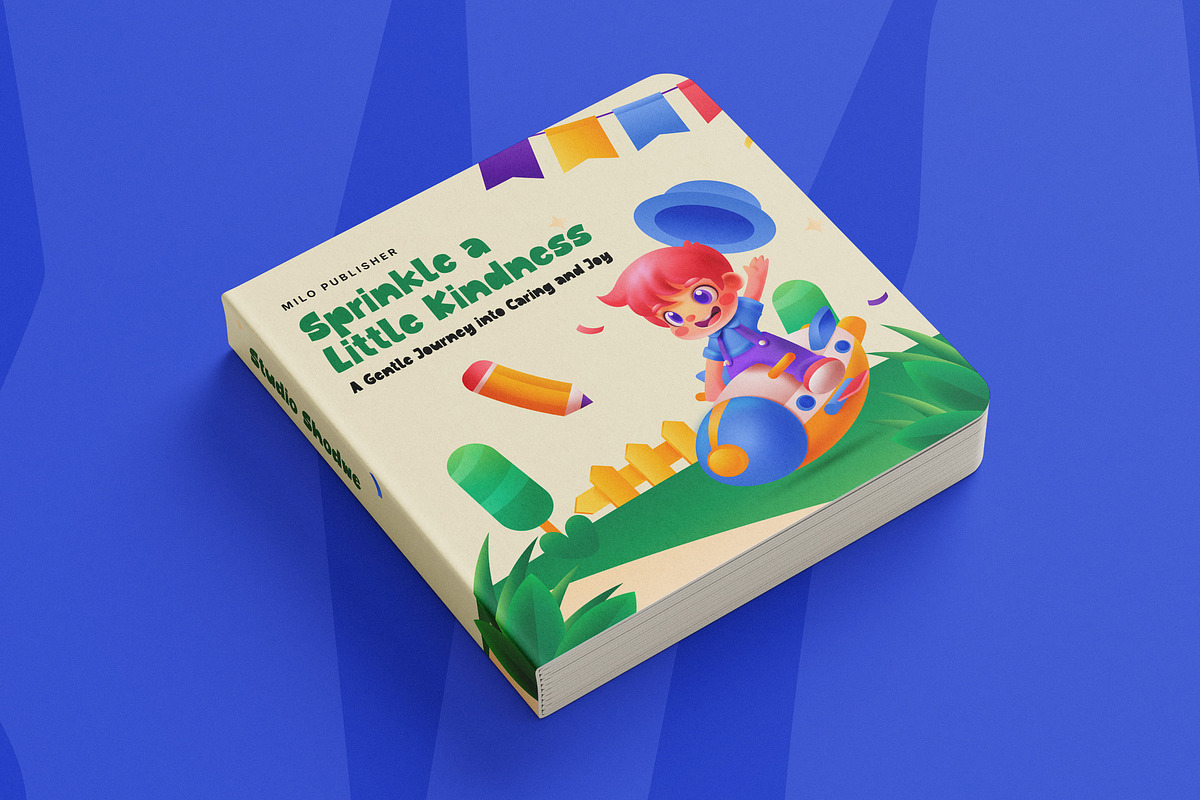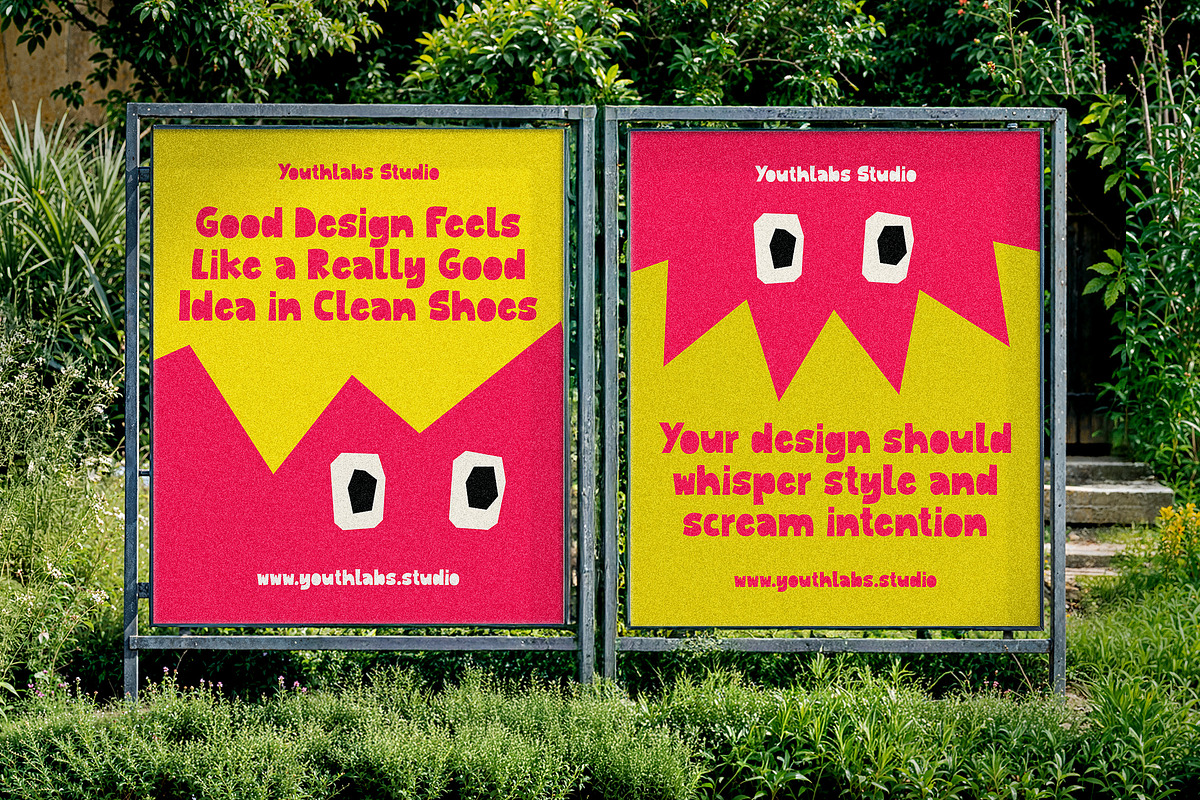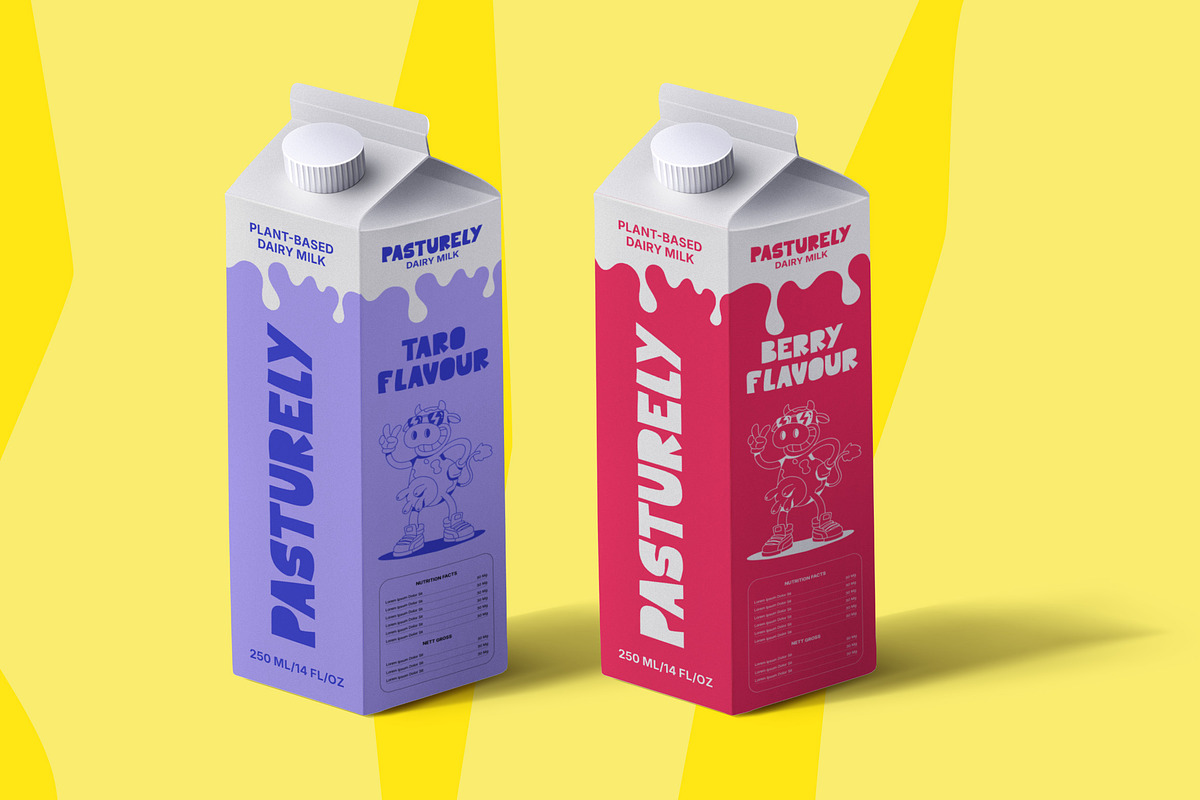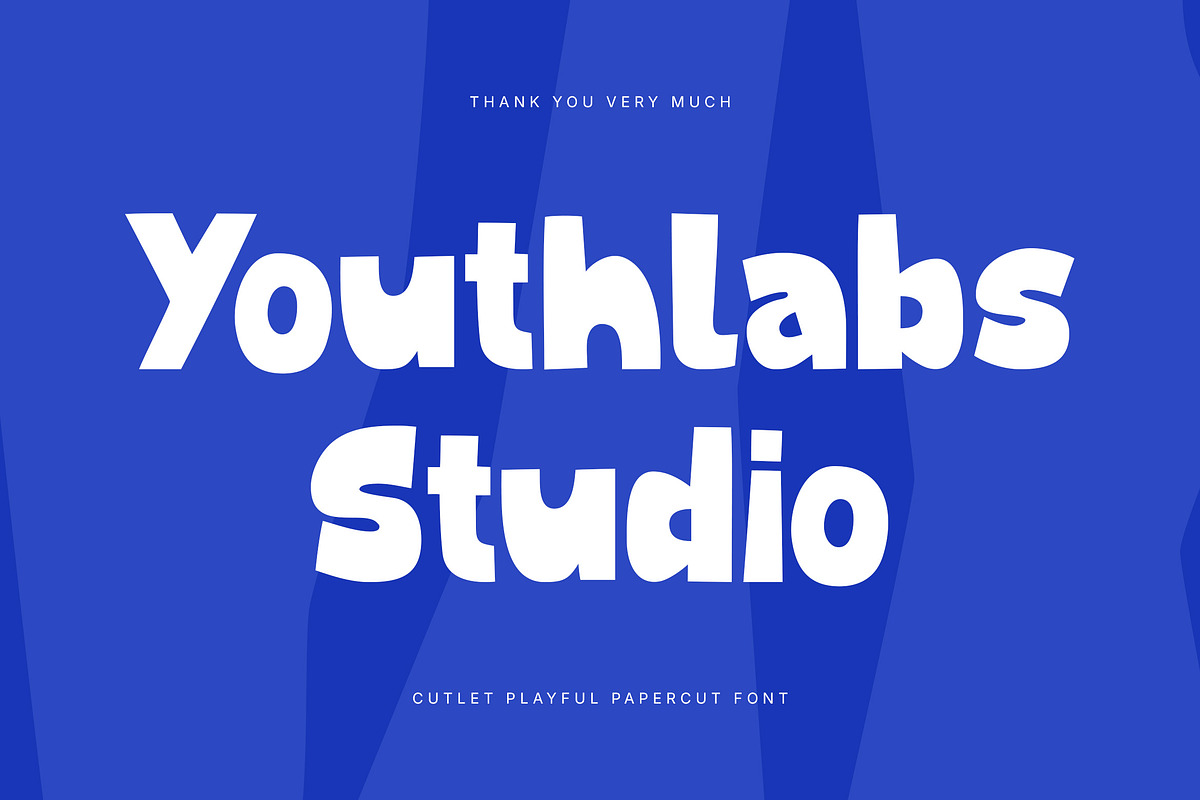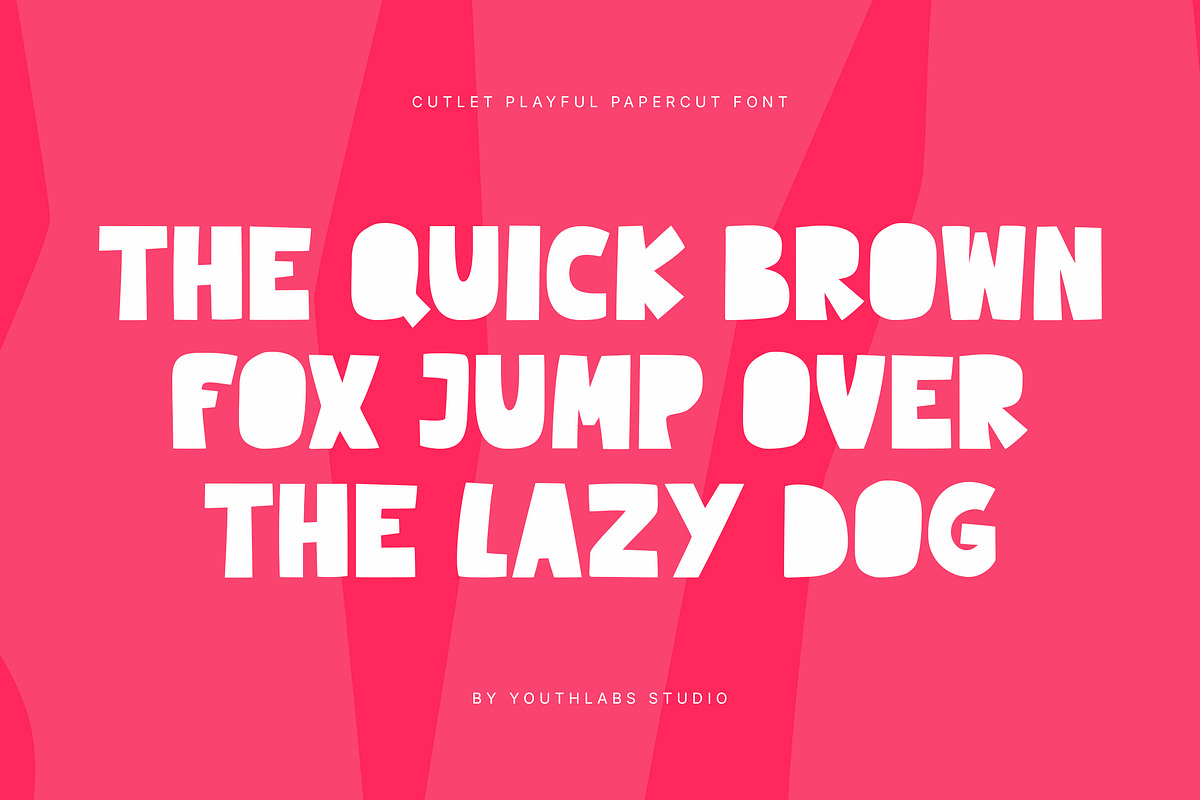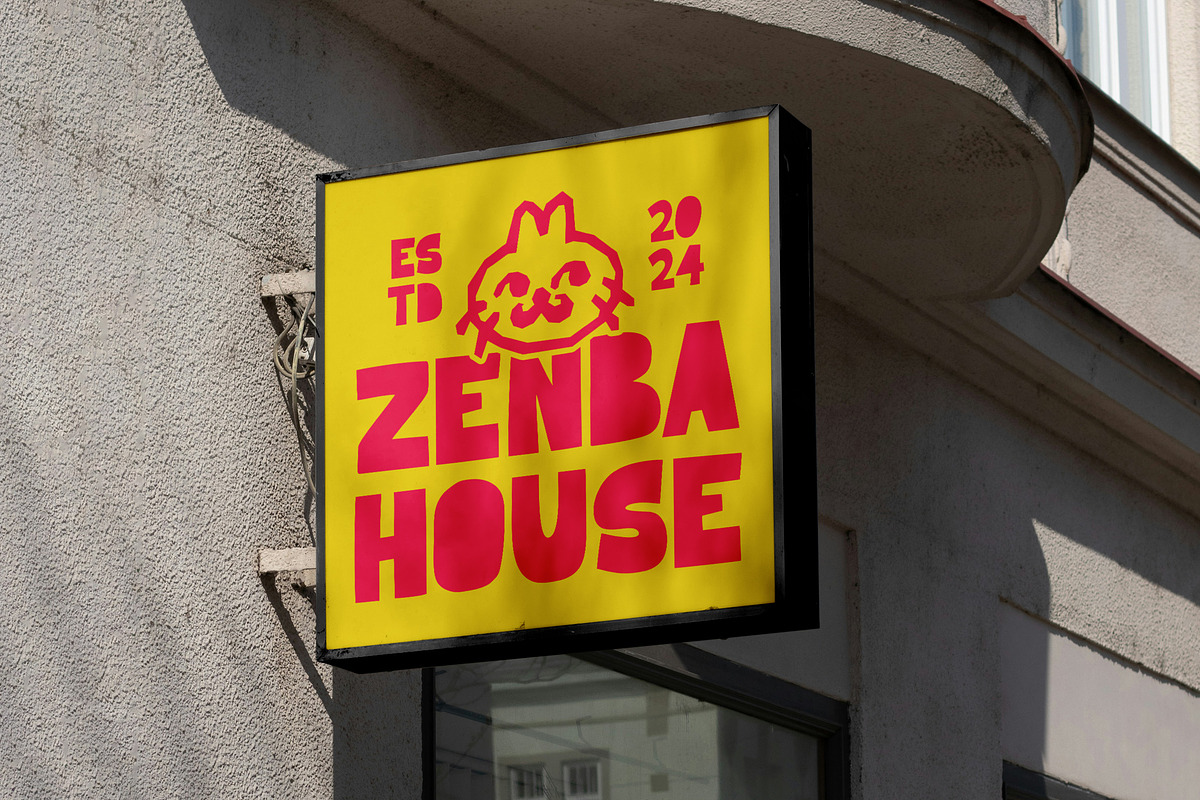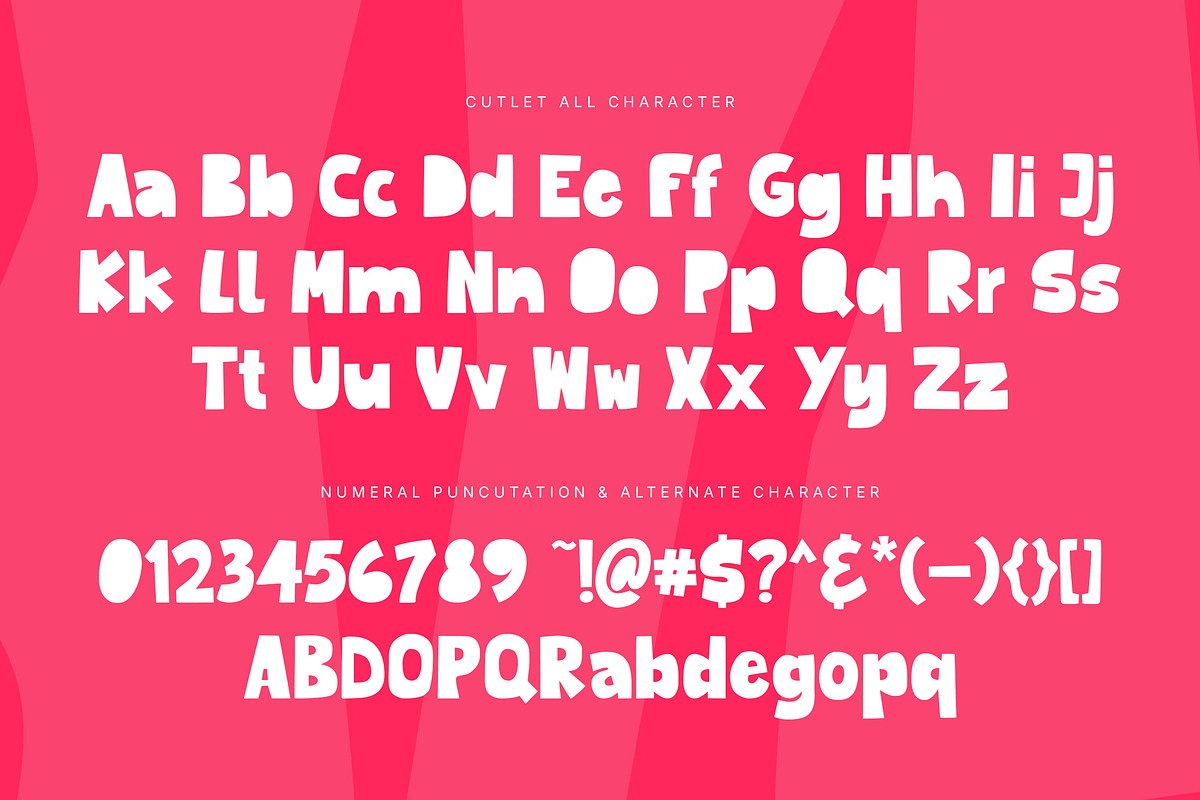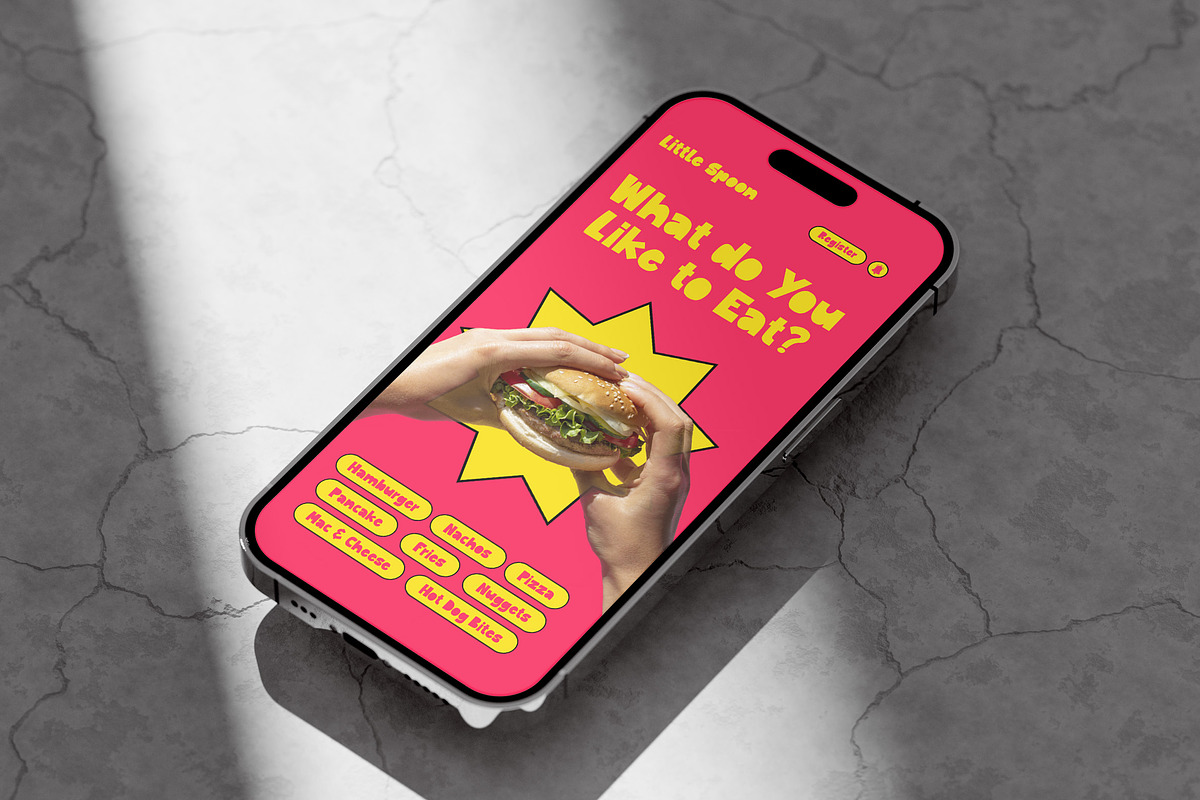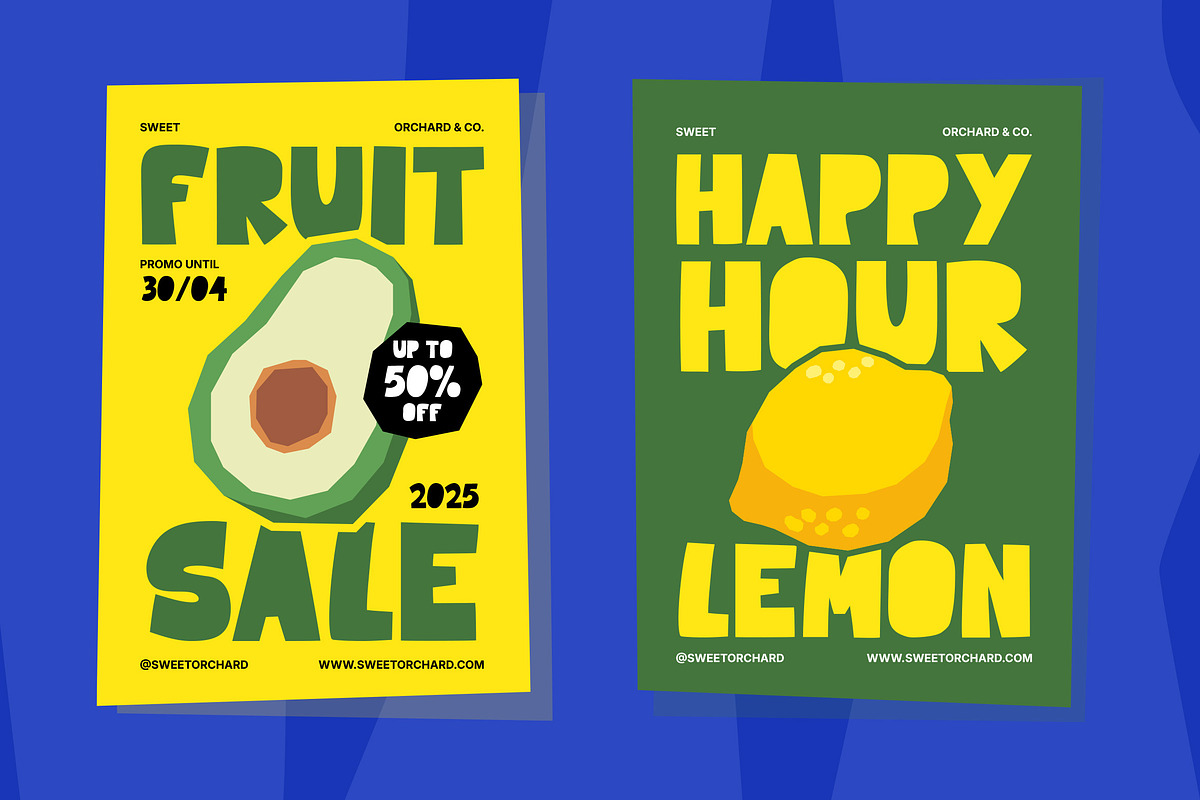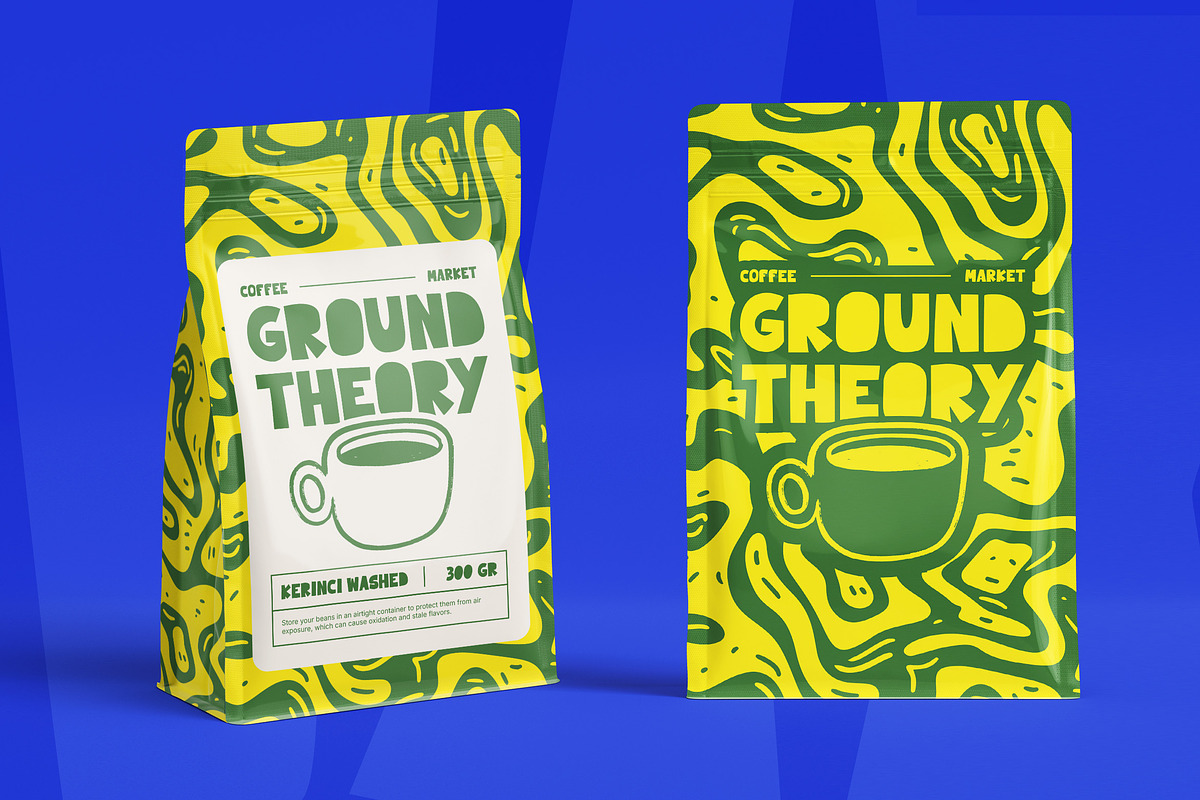
Cutlet - Playful Papercut Font
Cutlet is a bold and bubbly papercut-style font that brings joy to every word you type. With its quirky edges and playful character shapes, Cutlet feels handmade, happy, and full of life. Perfect for children's books, creative branding, fun packaging, and cheerful social media graphics, this font adds a burst of personality to any project. Whether you're designing for kids or simply want to spread good vibes, Cutlet makes your message pop with charm and delight.
- Alternate Character